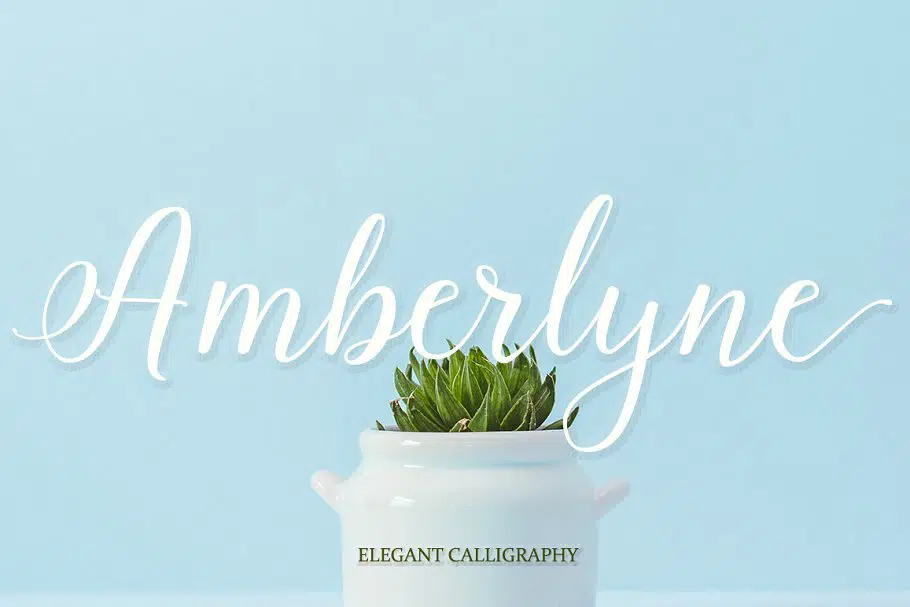
Amberlyne Script
Amberlyne Script Font is perfect for elegant wedding invitations, luxury beauty branding, sophisticated feminine logos, romantic stationery design, upscale fashion labels, graceful greeting cards, premium spa materials, intimate social media quotes, refined personal branding, and enchanting celebration announcements.
Amberlyne Script Font is exciting because it radiates warm elegance and golden sophistication through flowing calligraphic letterforms that evoke precious amber beauty and timeless feminine grace with enchanting allure. This luxuriously designed script combines traditional calligraphy artistry with contemporary refinement, making it perfect for brands that want to communicate precious quality, warm elegance, and sophisticated femininity that glows with natural beauty.
The Amberlyne Script Font family includes flowing script weights with amber-inspired character styling, featuring golden decorative elements and warm flourishes. The font showcases precious design details, elegantly-refined proportions, and sophisticated character variations that create a comprehensive typographic system for luxury and feminine brand applications.
The golden sophistication of Amberlyne Script Font makes it an invaluable tool for beauty professionals, luxury retailers, and feminine lifestyle brands that need typography capable of communicating precious elegance and warm sophistication. The font's amber-inspired character helps establish connections with audiences seeking refined beauty experiences and authentic luxury that radiates warmth and natural elegance.
Wedding planners, luxury beauty salons, and high-end fashion boutiques consistently choose Amberlyne Script Font for its ability to convey golden elegance and feminine sophistication through typography. The font excels in applications where establishing luxury credibility and warm appeal are essential to brand positioning, making it particularly effective for beauty services, luxury goods, and feminine celebration brands targeting sophisticated women.
This font's comprehensive character set includes amber-inspired letterforms with flowing connections, golden numerals, elegant punctuation marks, and precious symbols that support authentic luxury calligraphy composition. The consistent warm styling maintains the golden sophistication theme throughout all characters while ensuring professional readability across all luxury and feminine design projects requiring Amberlyne Script Font Free Download functionality.